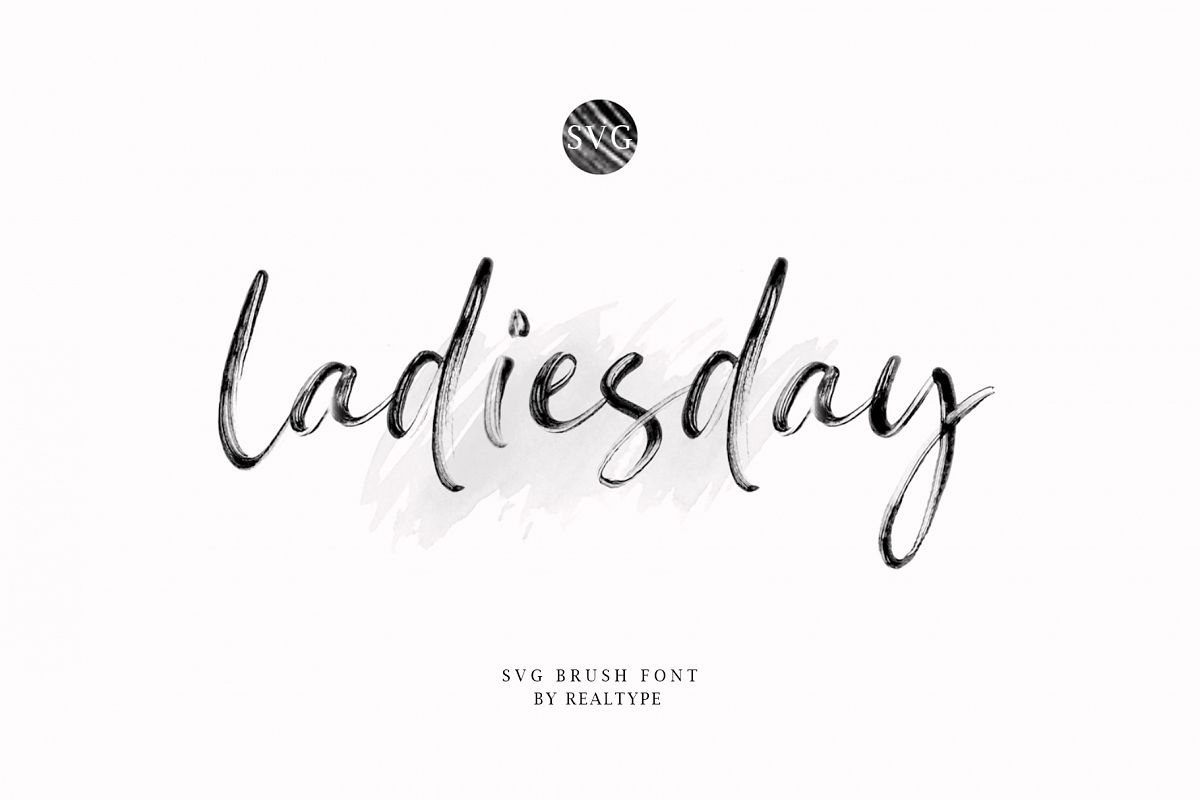
Ladiesday SVG & Brush Font
INTRODUCE Ladiesday SVG & BRUSH OPENTYPE FONTS!
Ladiesday is a hand-painted font package containing two Opentype fonts, SVG & Regular Brush fonts. This SVG Opentype font
keeps all the transparency and texture of the original letters painted. The sheet will make your design project explode with character
and charm, and will make your design project look realistic. Each letter and symbol is hand painted.